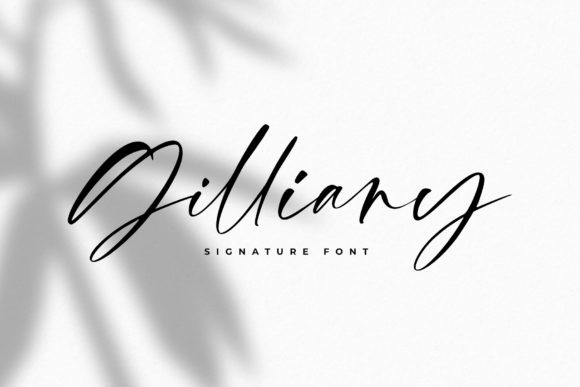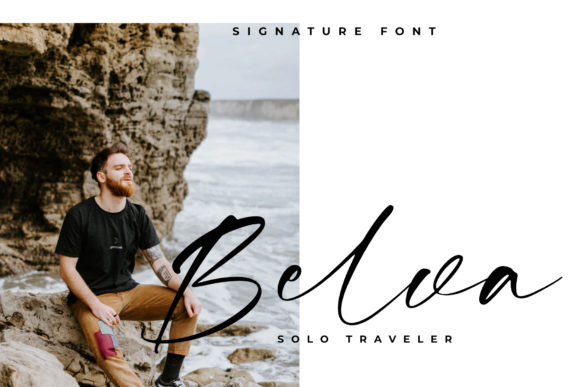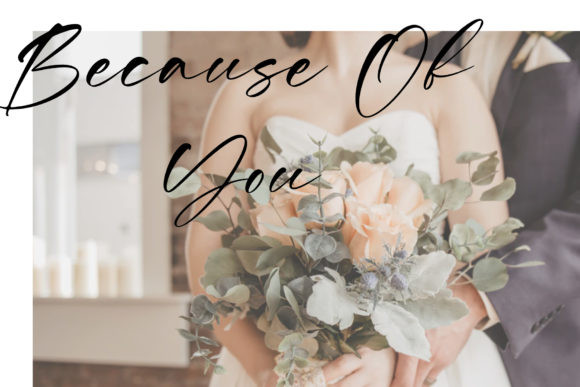
Gilliany Font
Gilliany is a magical handwritten font carefully created with a touch of elegance. This font is the perfect fit for making original and outstanding designs.